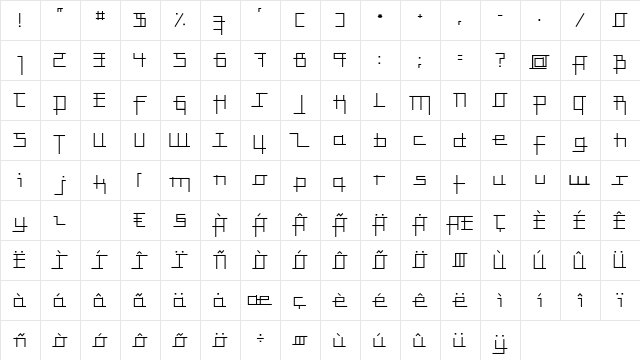
Anlinear LT Std Light
Design Context for Anlinear LT Std Typeface
Anlinear LT Std is a composed and adaptable typeface that performs quietly and consistently across a wide range of design contexts. Its slender proportions lend an understated elegance to any composition.
Pro Tip: Pair Anlinear LT Std with a font of contrasting weight or personality to build a more expressive typographic hierarchy.